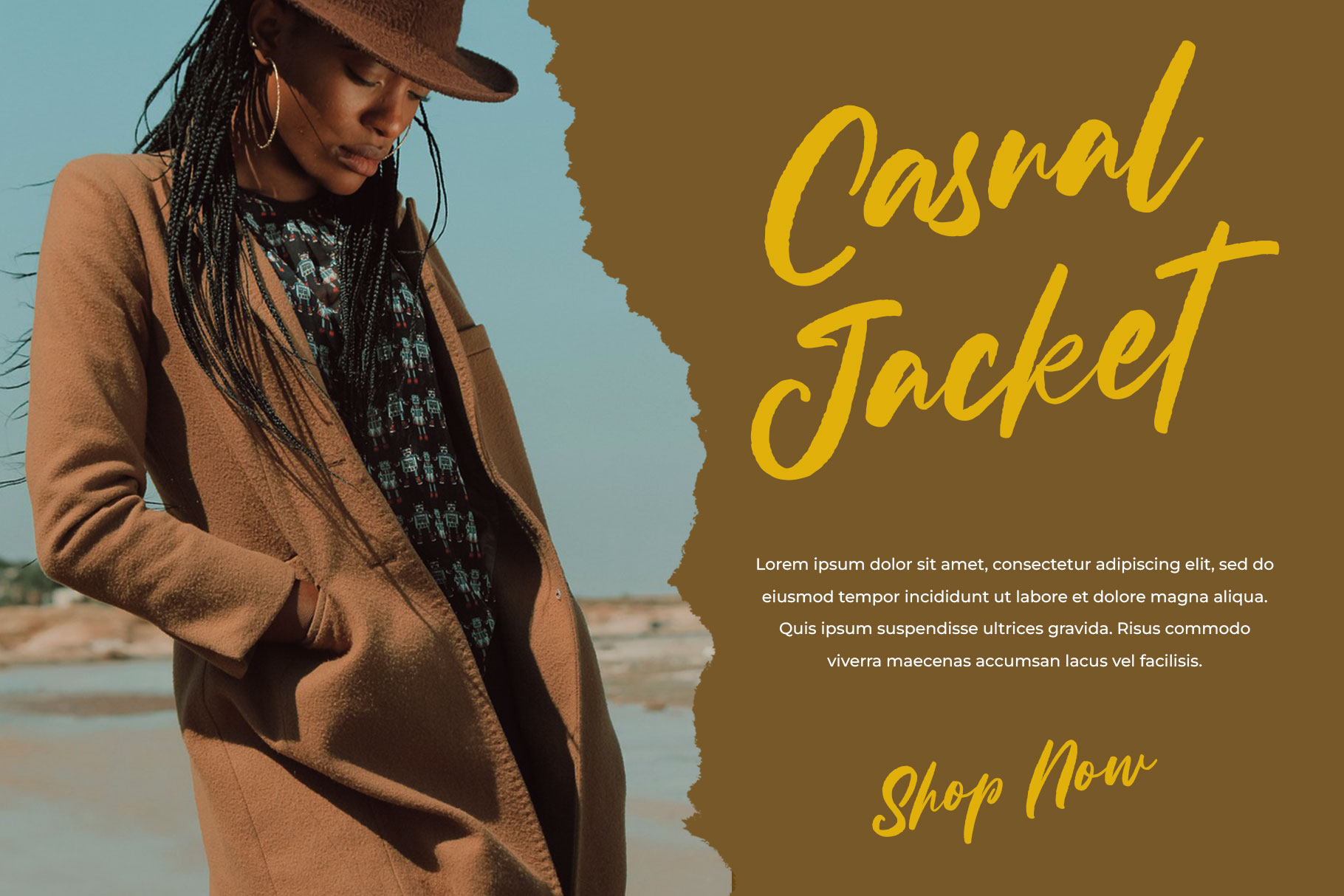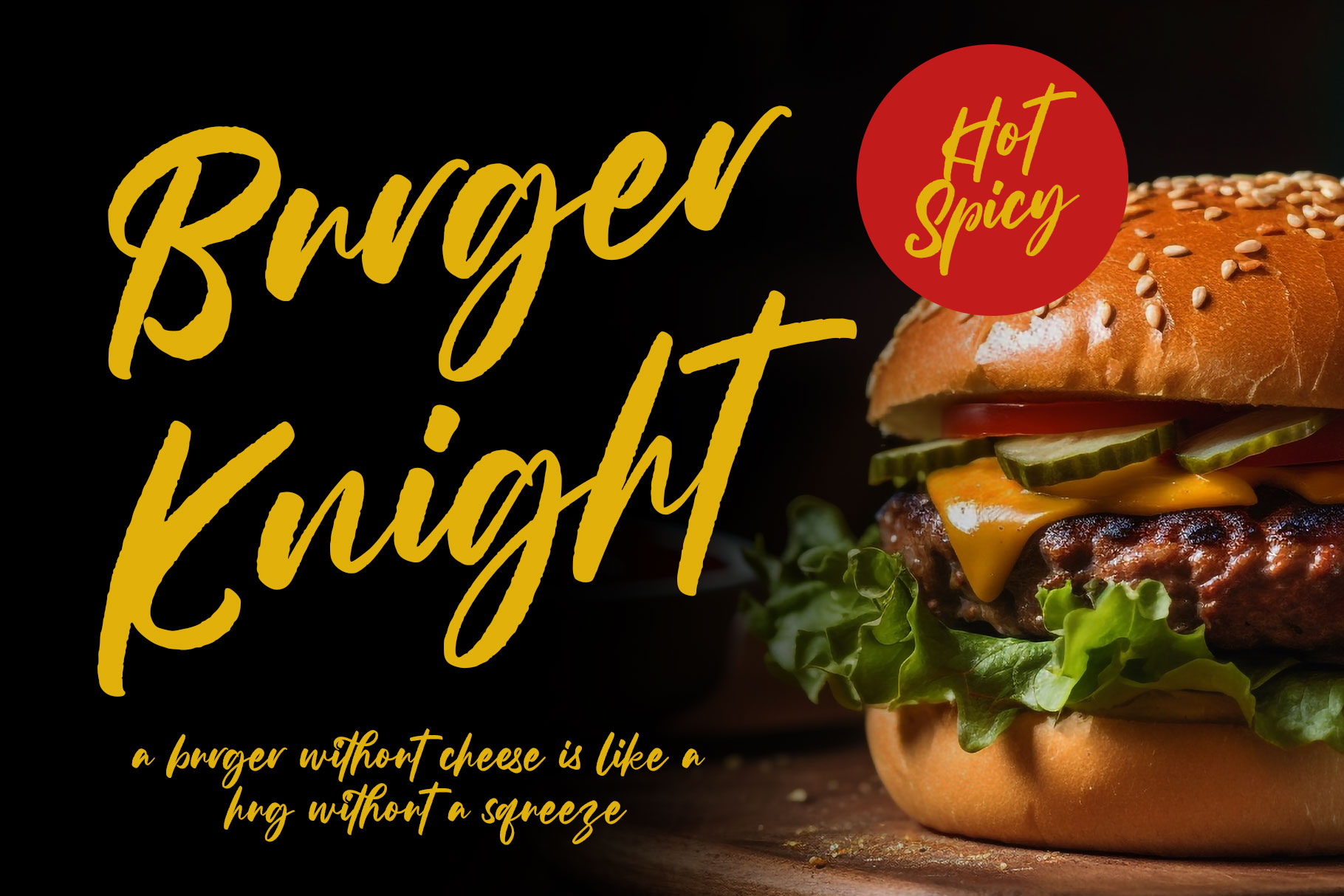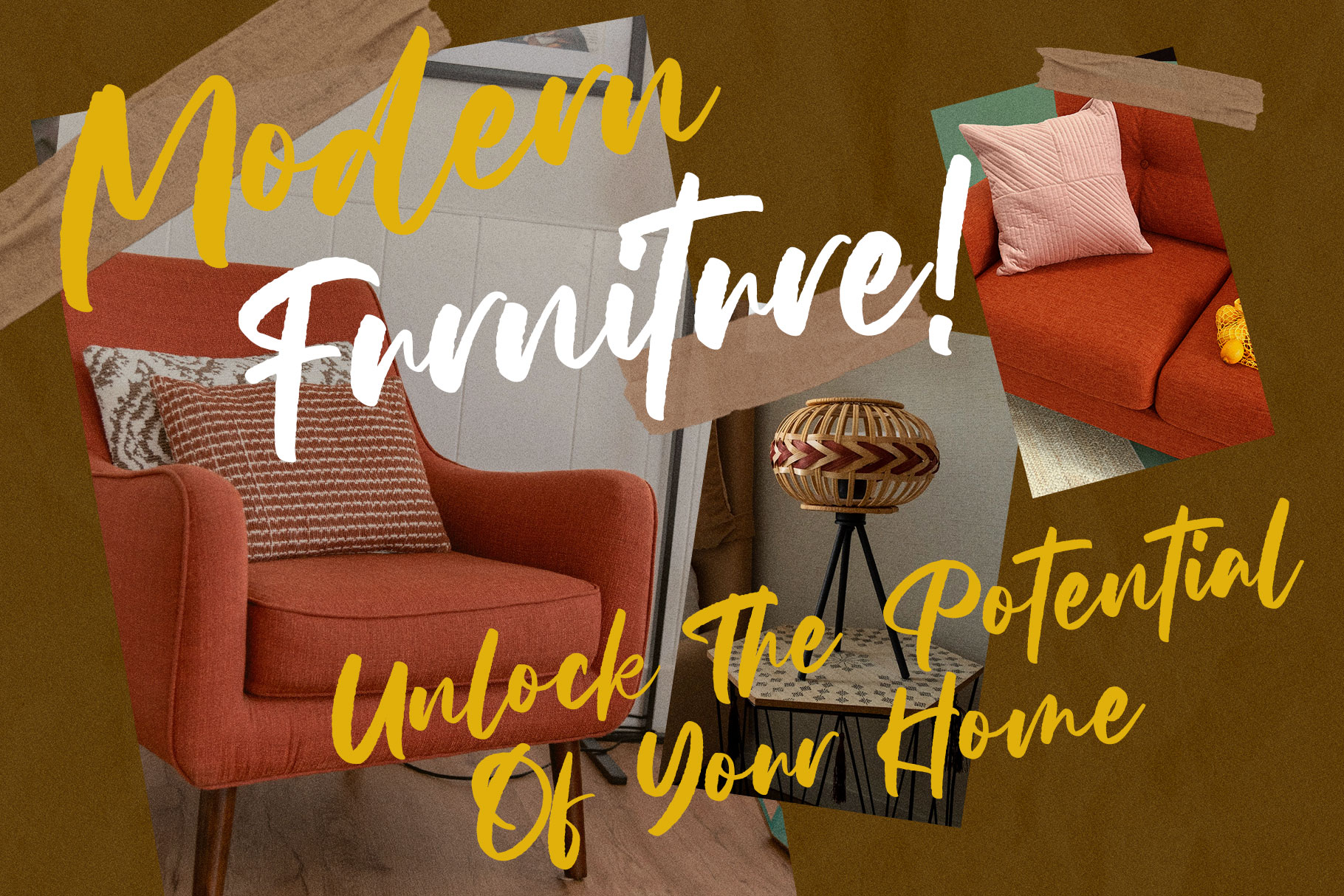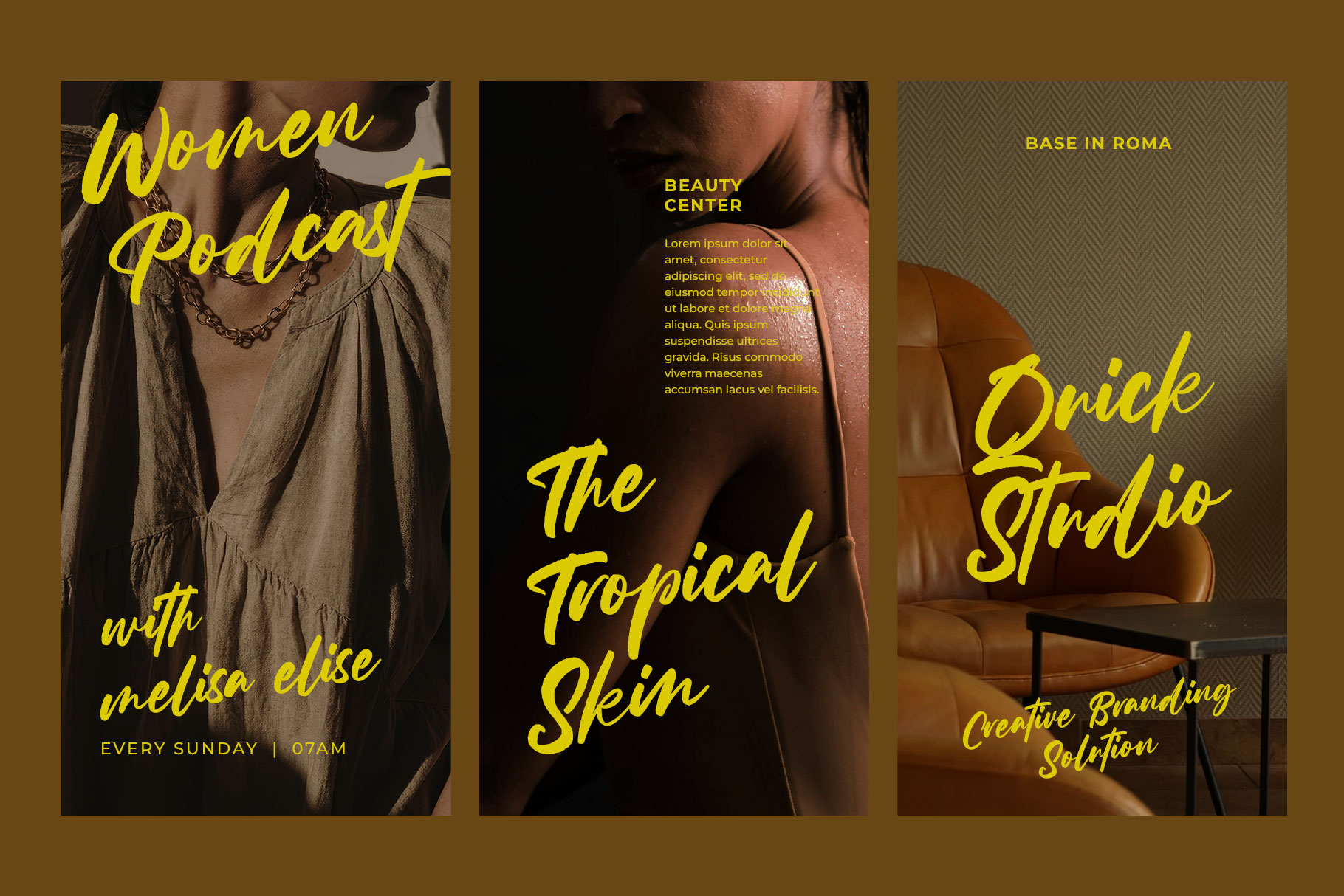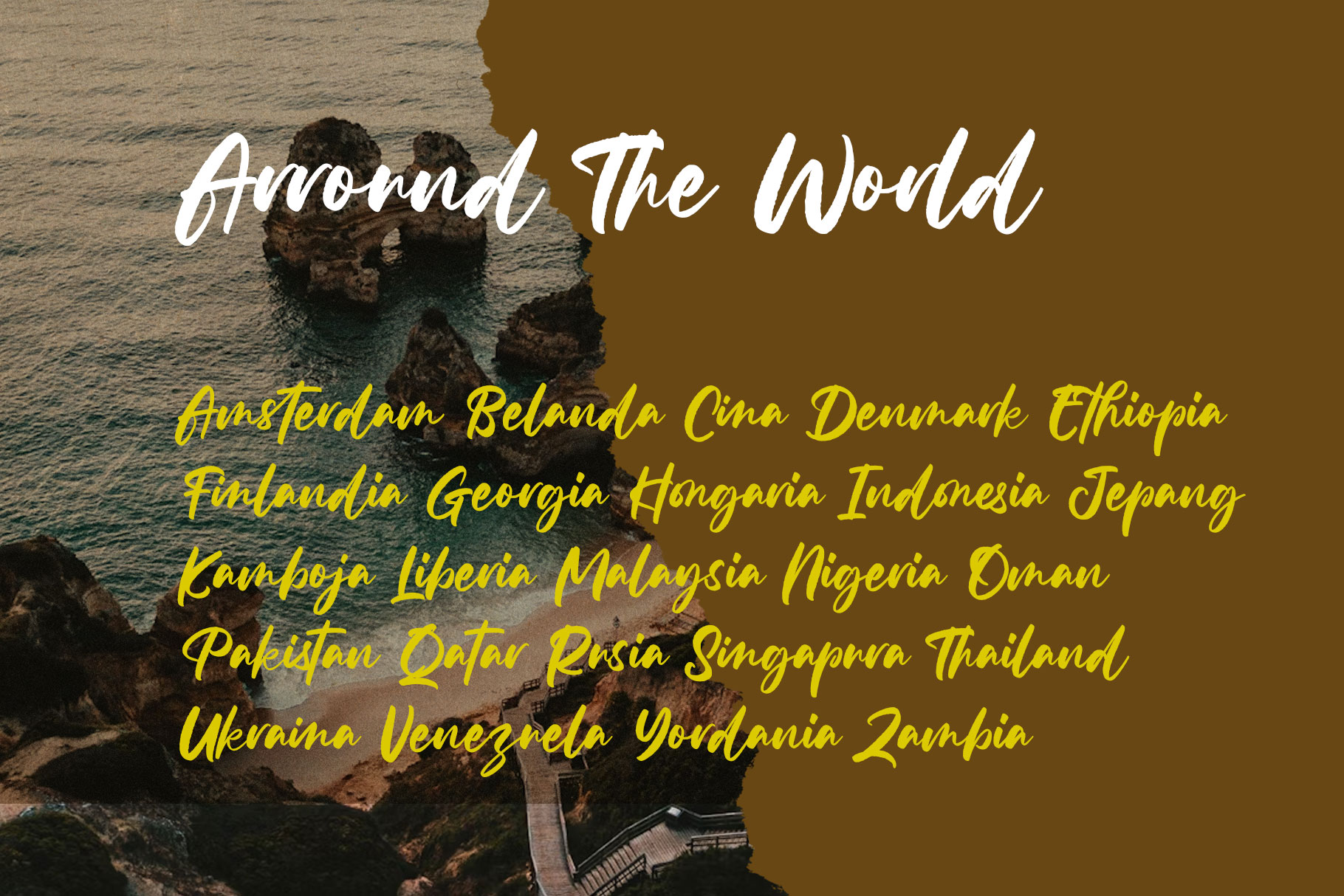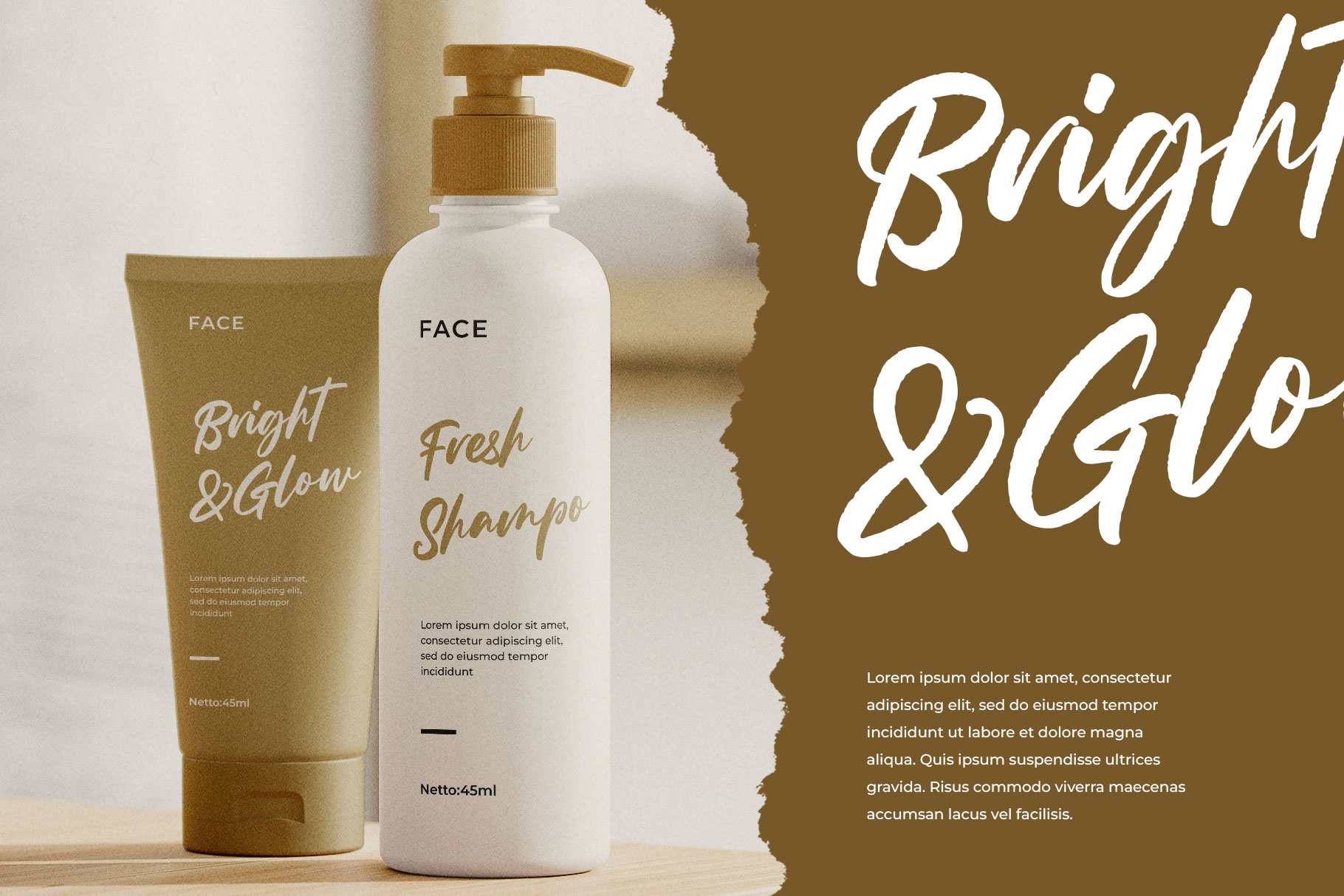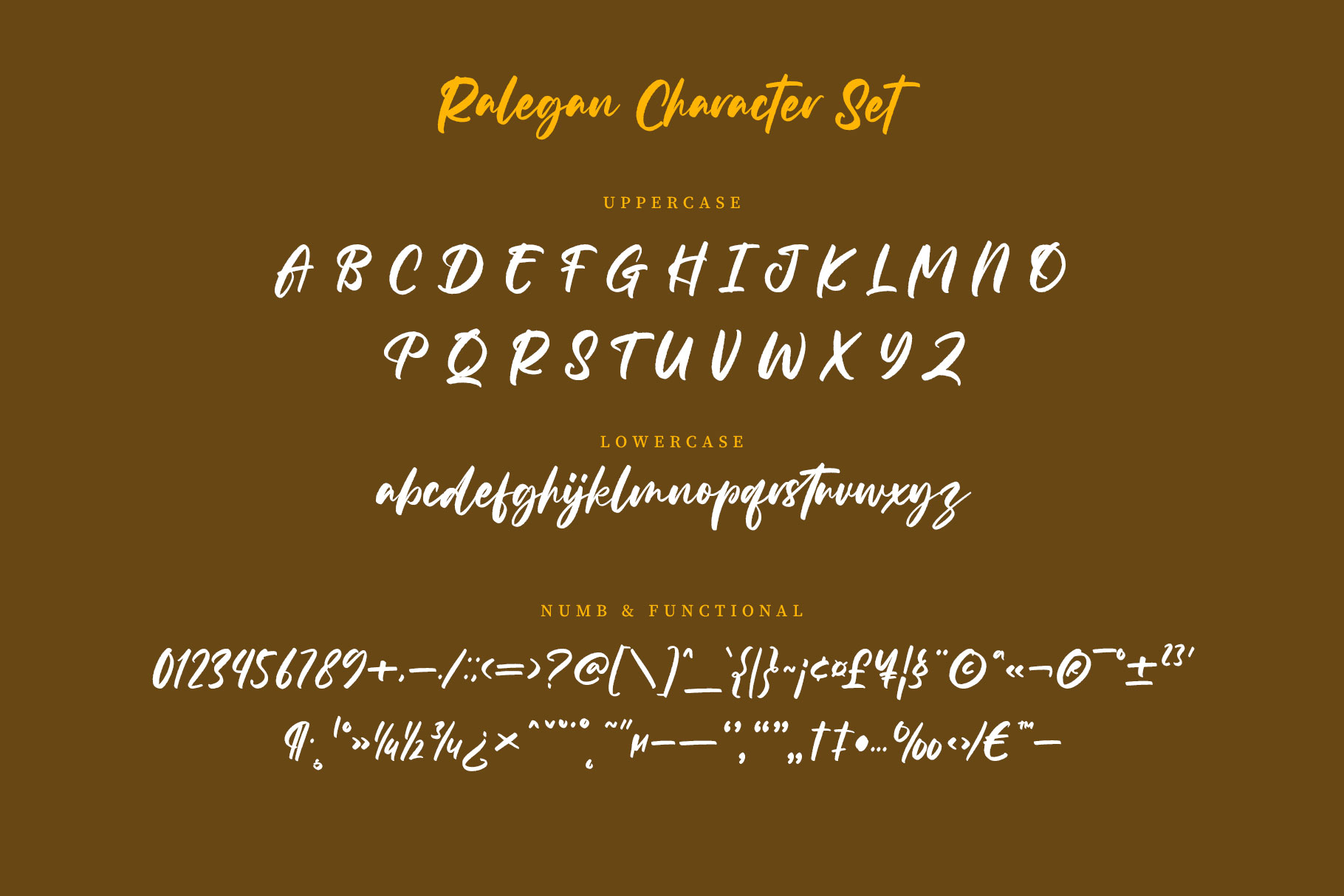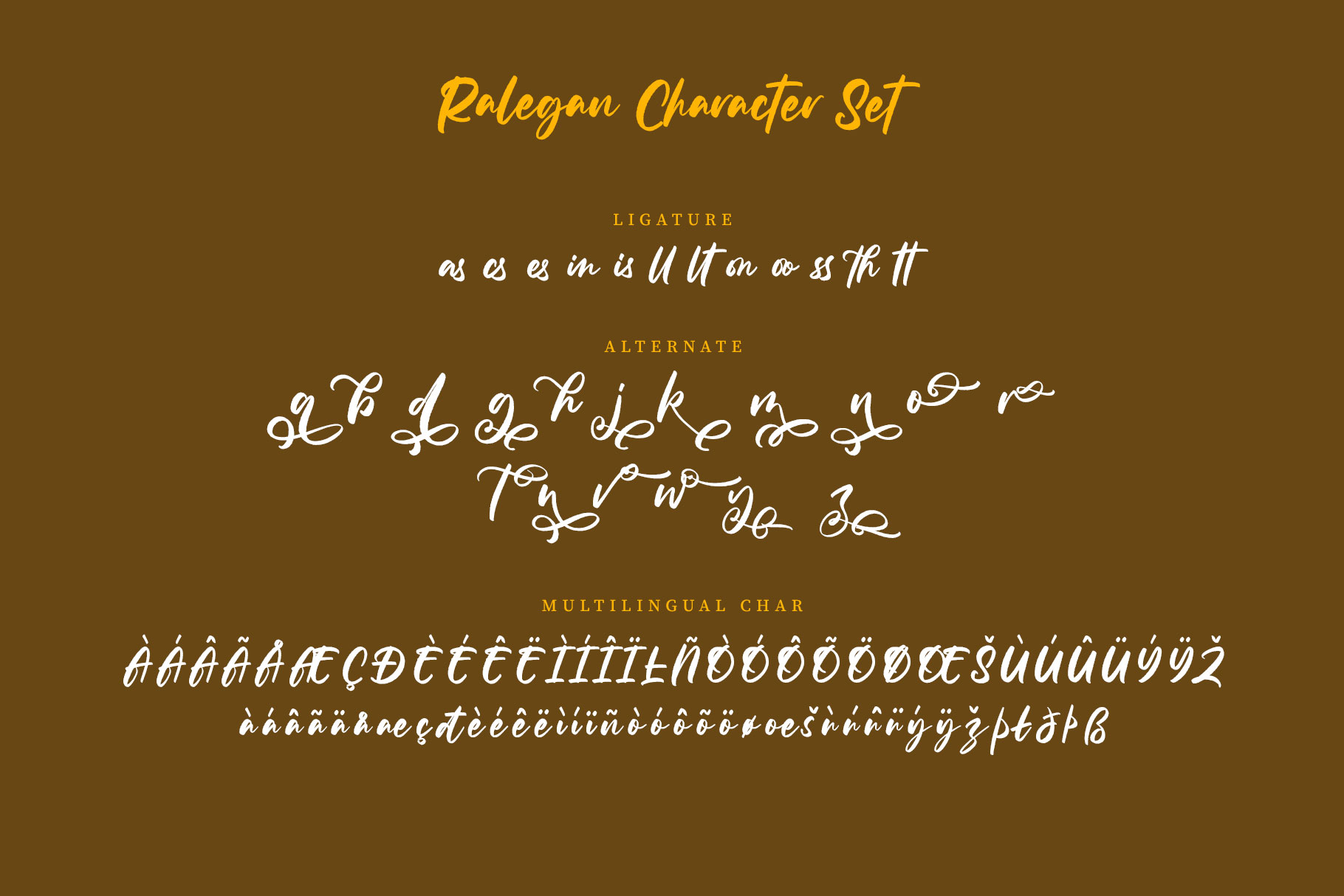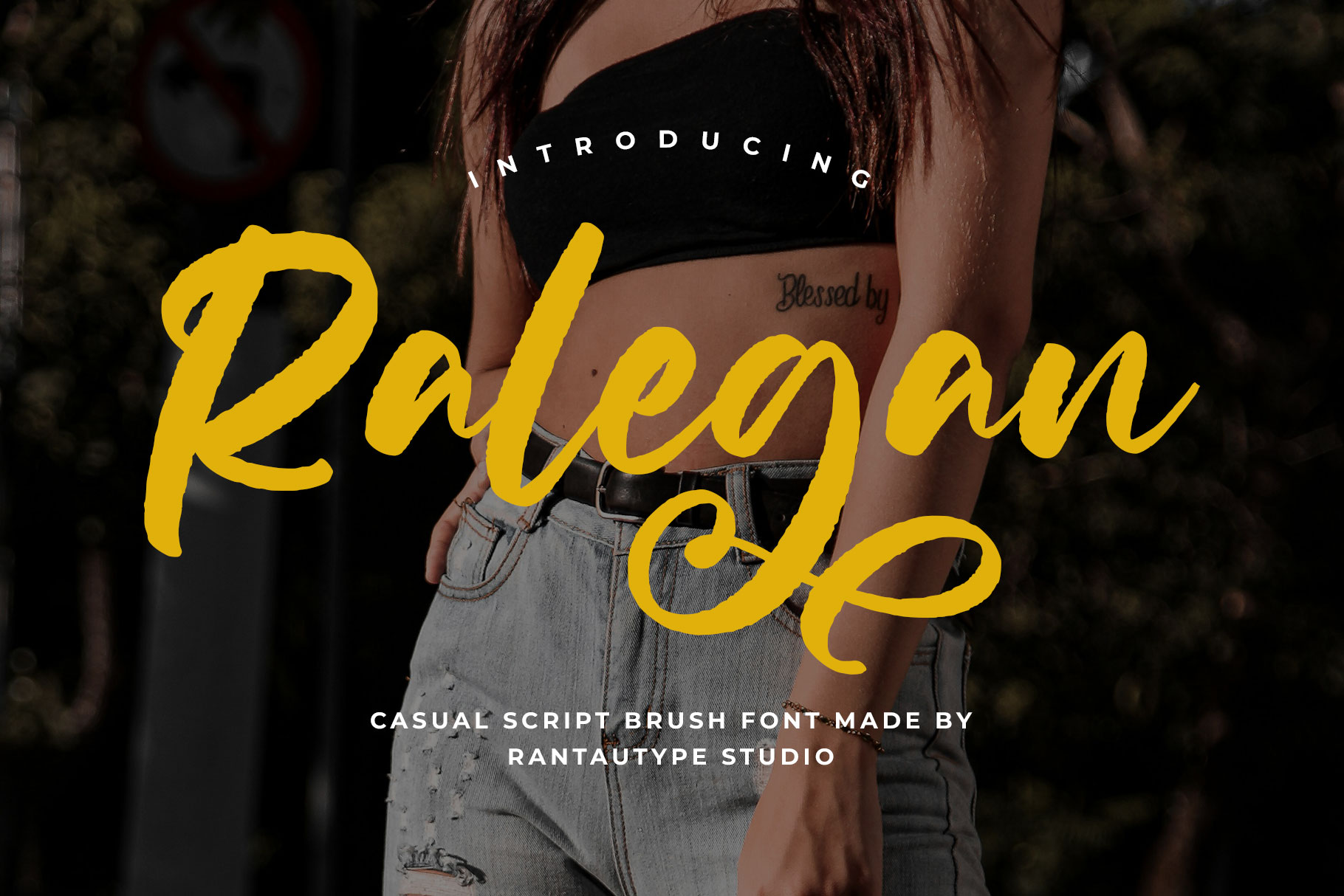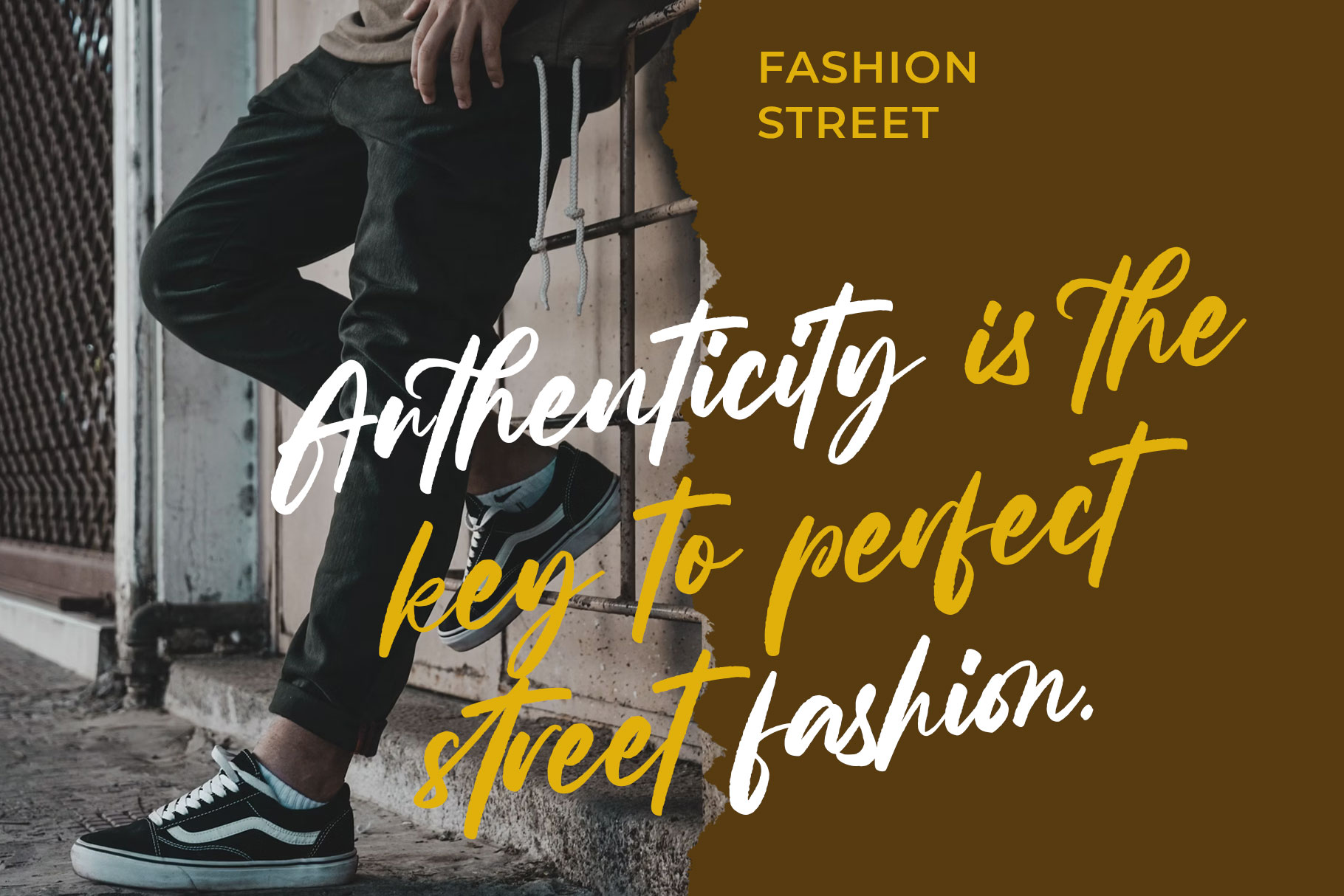
Ralegan Casual Brush Font
Ralegan is casual script font with handbrush texture. Ralegan come with beautiful display style to make your design project stand out. Ralegan is a perfectly choice for any creative endeavor,modern, chic, lifestyle design such as logotype, title, cover, branding, invitations, wedding designs, display and magazine, social media posts, advertisements, printed quotes, product packaging, corporate brand, product designs, labels, photography, watermarks, special events and any other project with handwritten touch.